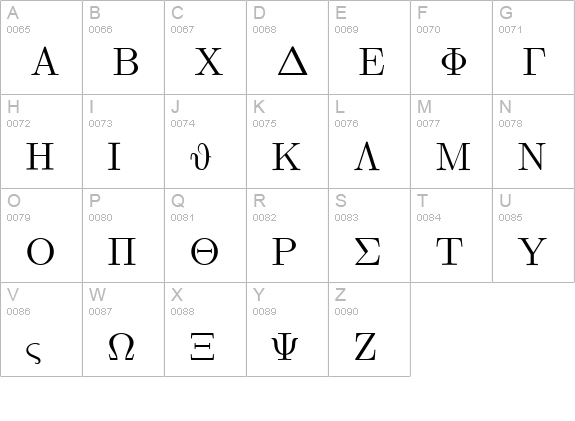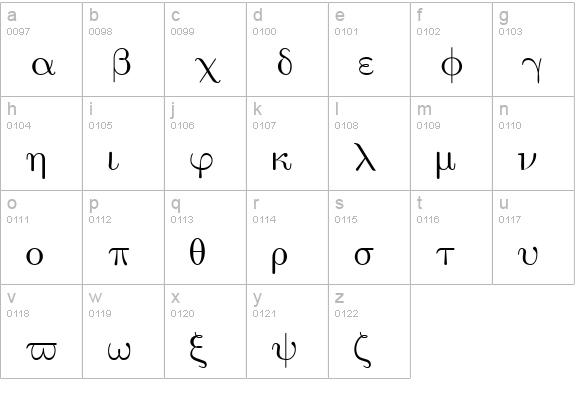
Euclid Symbol Font Details
Euclid Symbol font is a unique and versatile typeface that brings a touch of elegance and modernity to any design. With its clean lines and geometric shapes, Euclid Symbol is perfect for creating sleek and sophisticated designs. This font is ideal for various projects, including branding, logos, and editorial designs. What sets Euclid Symbol font apart is that it is available for free download at FontsMarket.com. This means you can easily access this high-quality font and use it in your projects without any cost. Whether you are a designer looking to enhance your creations or a business owner wanting to elevate your brand, Euclid Symbol font offers a stylish and professional solution. Experience the beauty and versatility of Euclid Symbol font today by downloading it for free at FontsMarket.com.